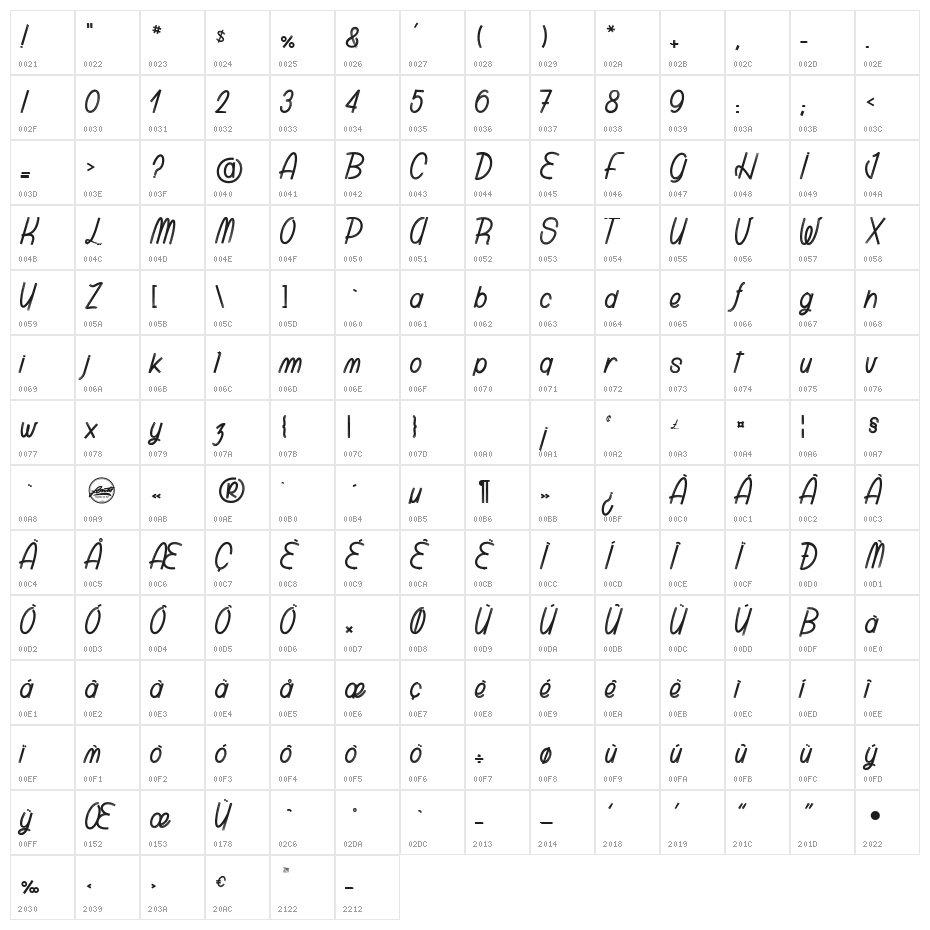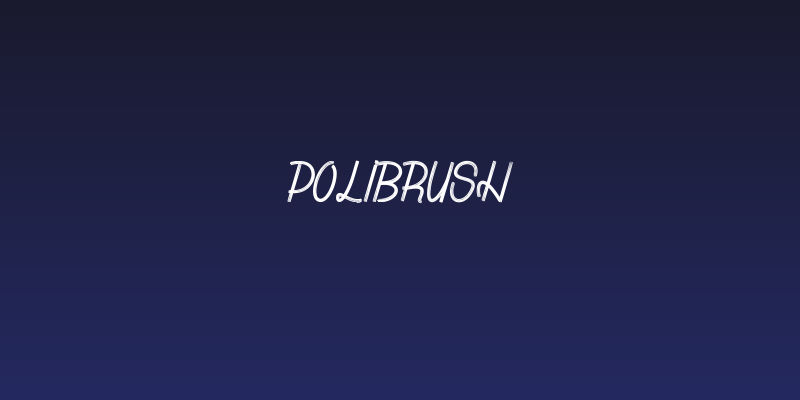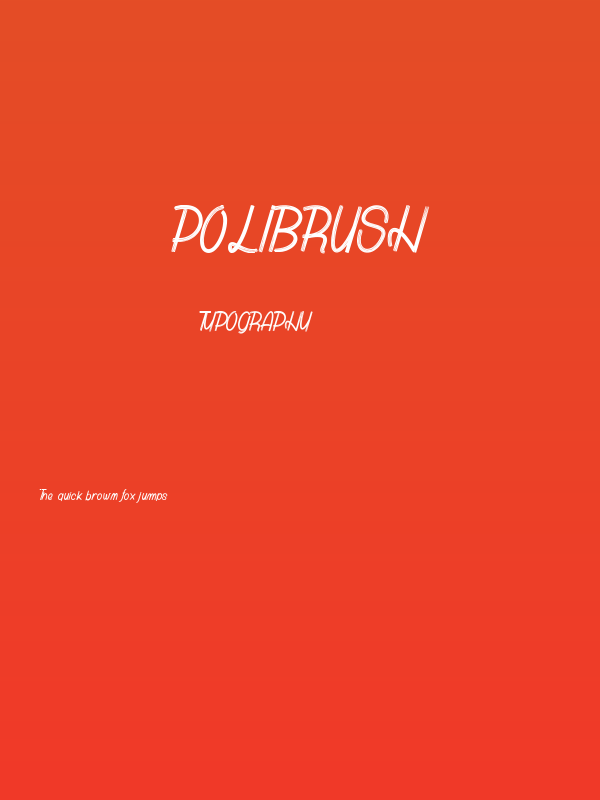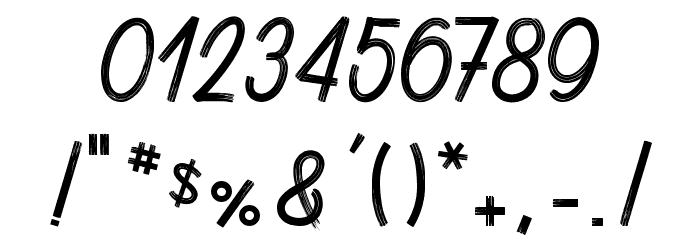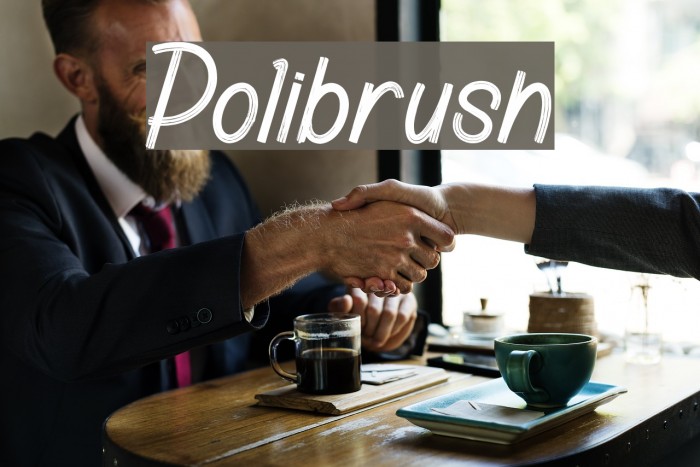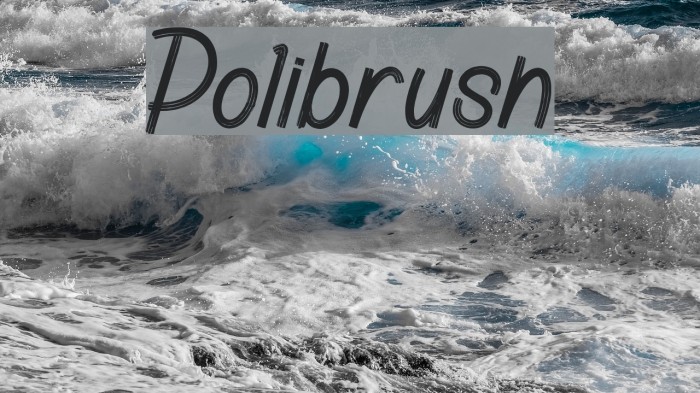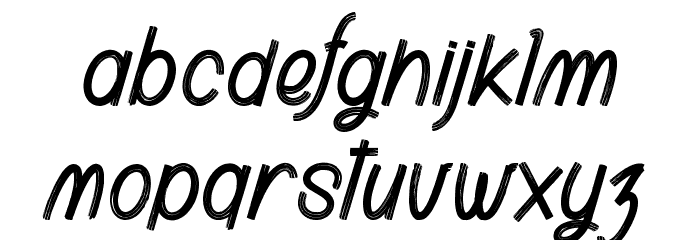
Polibrush Font
Polibrush Description
This font exhibits a dynamic and energetic style, characterized by its brush-like strokes that give it a hand-drawn appearance. The uppercase letters are bold and slightly slanted, adding a sense of movement and flair. The lowercase letters maintain the same energetic style, with a consistent flow and rhythm. Numbers and special characters are crafted with the same brush-like quality, ensuring a cohesive look across all glyphs. The overall design is playful yet sophisticated, making it suitable for creative and artistic projects.
| Use Case | Logos, Posters, Creative Headlines |
| Proposed Projects | Ideal for artistic projects, branding, posters, and creative designs that require a lively and expressive touch. |